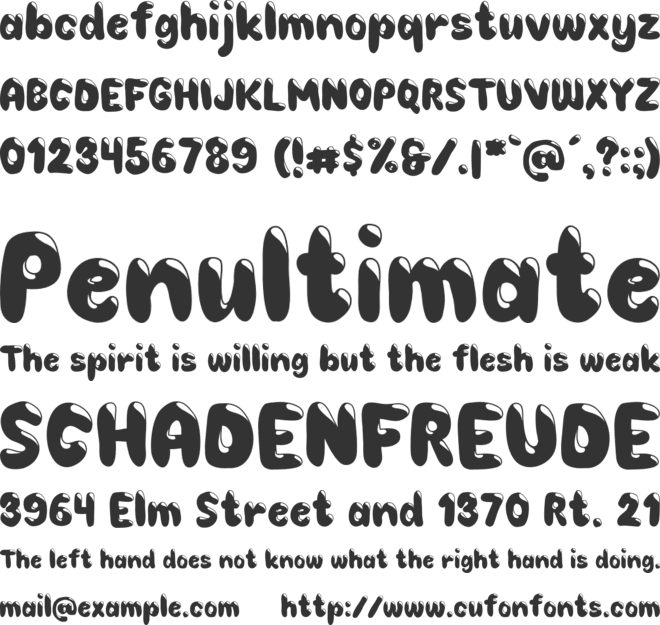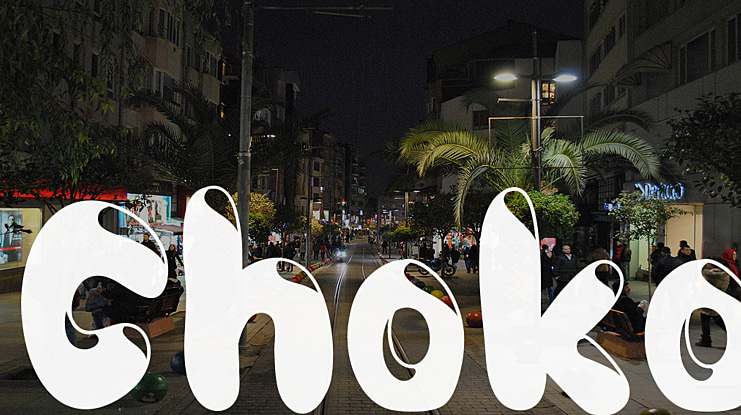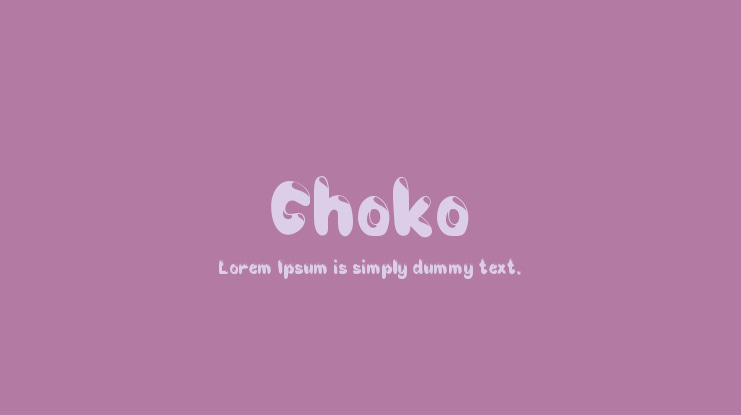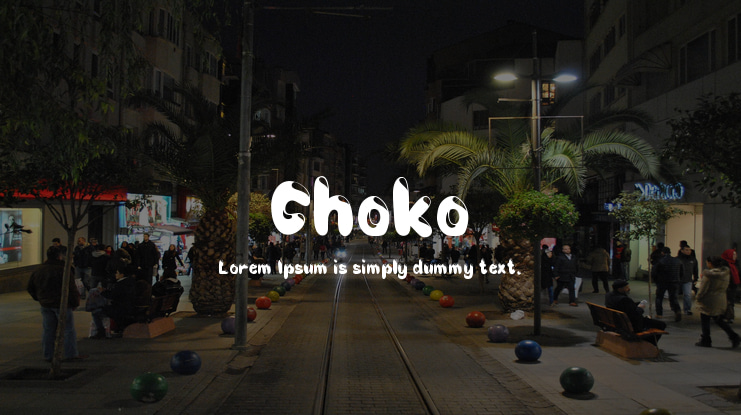
Choko Font Family
The Choko font was created by Måns Grebäck in 2011 but remained unreleased until 2016.
Place the different styles on top of each other to create a multicolor text.